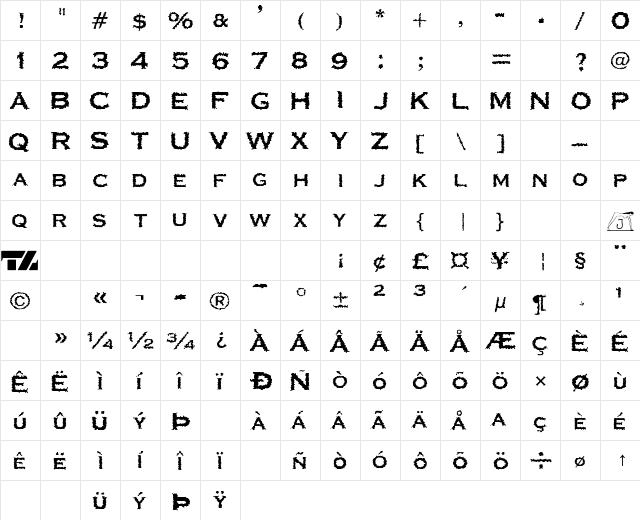
Corrodated J Perished
Design Context for Corrodated J Typeface
Corrodated J is a composed and adaptable typeface that performs quietly and consistently across a wide range of design contexts.